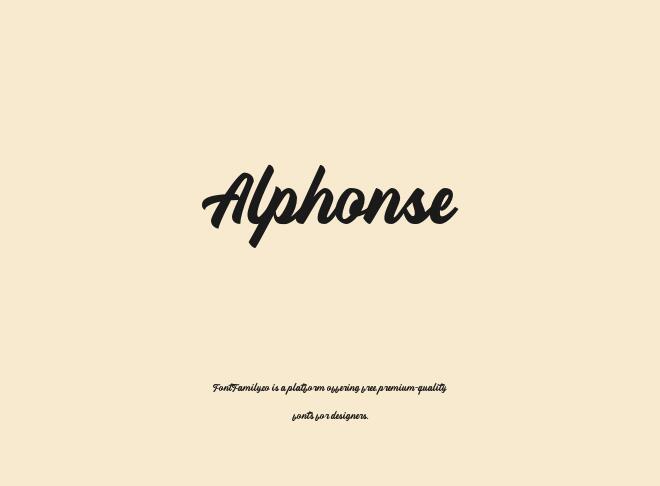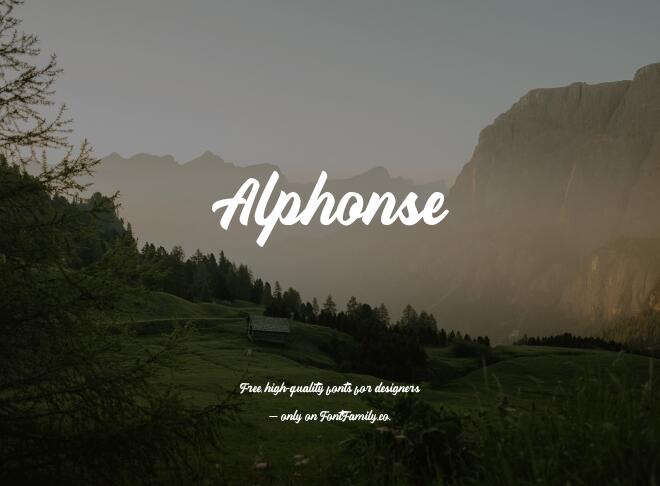
Alphonse Font
Alphonse Font is a beautifully crafted typeface designed by Designers Foundry. Its elegant and classic style is perfect for all types of design projects including branding, packaging, and wedding invitations. The script-based design is reminiscent of traditional calligraphy, yet with a modern twist that makes it stand out. Its decorative elements add a unique flair, setting it apart from other fonts. Alphonse Font is comparable to classic script fonts, yet its distinctive features make it an excellent choice for designers seeking a unique and elegant typeface. With its Open Font License, it is free to use and modify, making it a versatile choice for both personal and commercial projects.